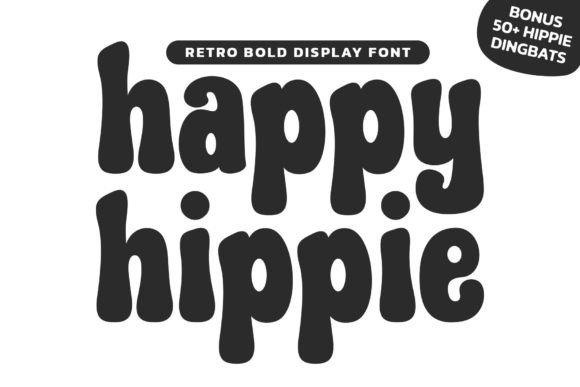
Happy Hippie Font: Add a Retro Touch to Your Designs
The Happy Hippie font is a fun and groovy display and dingbats font that has been making waves in the design world. Its funky style is perfect for creating a variety of designs, from t-shirts and stickers to children’s book covers and social media posts. In this article, we’ll take a closer look at the Happy Hippie font, its features, and how you can use it to add a special retro touch to your designs.
What is Happy Hippie Font?
Happy Hippie is a display and dingbats font that is characterized by its funky and playful style. The font is designed to evoke the spirit of the 1960s and 1970s, with its bold lines, bright colors, and carefree vibe. It’s the perfect font for designers who want to add a retro touch to their designs.
The Happy Hippie font comes with a range of features that make it versatile and easy to use. It includes:
- Uppercase and lowercase letters: The font includes both uppercase and lowercase letters, making it easy to use for a variety of designs.
- Dingbats and symbols: The font includes a range of dingbats and symbols, such as peace signs, flowers, and stars, that can be used to add a touch of whimsy to your designs.
- Multilingual support: The font supports multiple languages, making it a great choice for designers who work with clients from around the world.
What Can I Use Happy Hippie Font For?
The Happy Hippie font is a versatile font that can be used for a wide range of design projects. Here are some ideas to get you started:
- T-shirts and apparel: The Happy Hippie font is perfect for creating fun and quirky t-shirts, hoodies, and other apparel.
- Stickers and decals: The font’s bold lines and bright colors make it a great choice for stickers and decals.
- Children’s book covers: The Happy Hippie font is a great choice for children’s book covers, with its playful and whimsical style.
- Social media posts: The font can be used to create eye-catching social media posts that are sure to grab attention.
- Posters and flyers: The Happy Hippie font can be used to create bold and colorful posters and flyers.
Design Tips for Using Happy Hippie Font
Here are some design tips to keep in mind when using the Happy Hippie font:
- Keep it simple: The Happy Hippie font is bold and playful, so it’s best to keep your design simple and uncluttered.
- Use bright colors: The font looks best when paired with bright, bold colors that match its playful vibe.
- Experiment with different layouts: The Happy Hippie font can be used in a variety of layouts, so don’t be afraid to experiment and find a layout that works for your design.
- Pair it with other fonts: The Happy Hippie font can be paired with other fonts to create a unique and interesting design.
Benefits of Using Happy Hippie Font
Here are some benefits of using the Happy Hippie font:
- Unique and eye-catching: The Happy Hippie font is a unique and eye-catching font that is sure to grab attention.
- Easy to use: The font is easy to use and comes with a range of features that make it versatile and flexible.
- Retro vibe: The font has a fun and playful retro vibe that is perfect for designers who want to add a touch of nostalgia to their designs.
- Supports multiple languages: The font supports multiple languages, making it a great choice for designers who work with clients from around the world.
The Happy Hippie font is a fun and groovy display and dingbats font that is perfect for designers who want to add a retro touch to their designs. With its bold lines, bright colors, and carefree vibe, it’s the perfect font for a wide range of design projects, from t-shirts and stickers to children’s book covers and social media posts. Whether you’re a seasoned designer or just starting out, the Happy Hippie font is a great choice for anyone who wants to add a little bit of whimsy and fun to their designs.